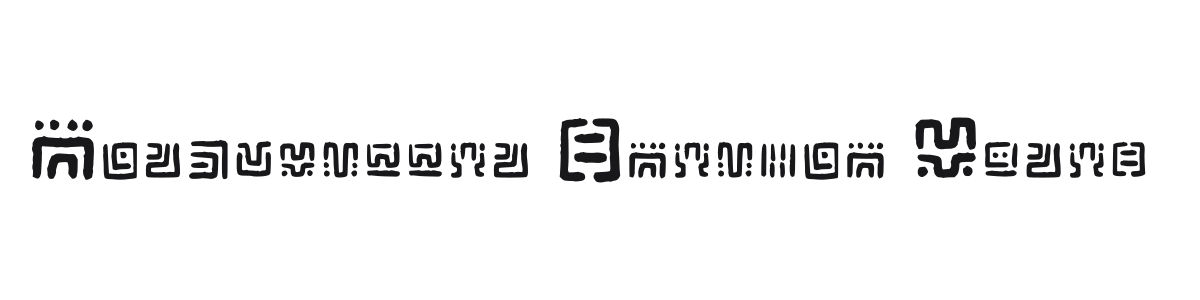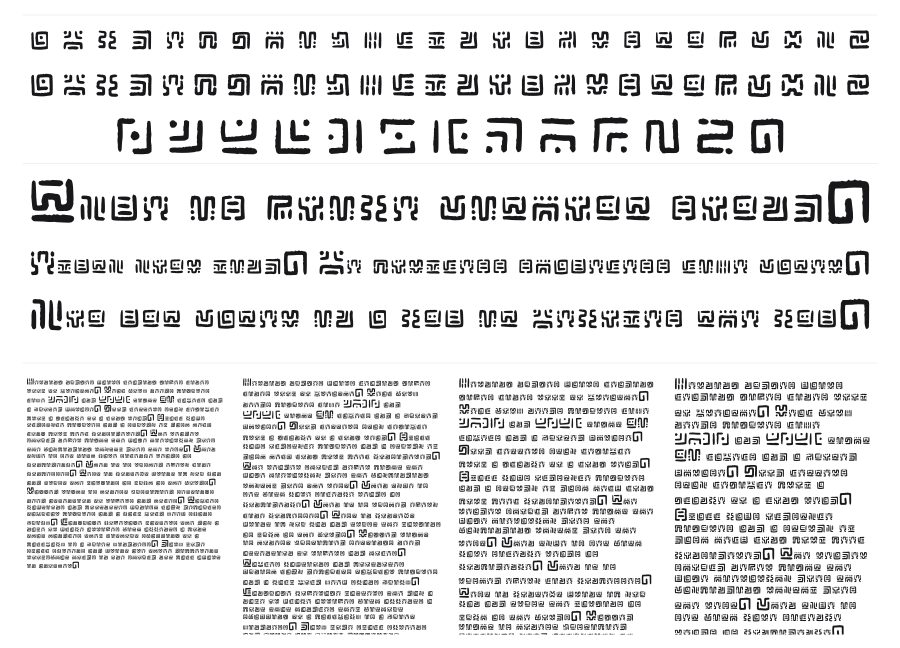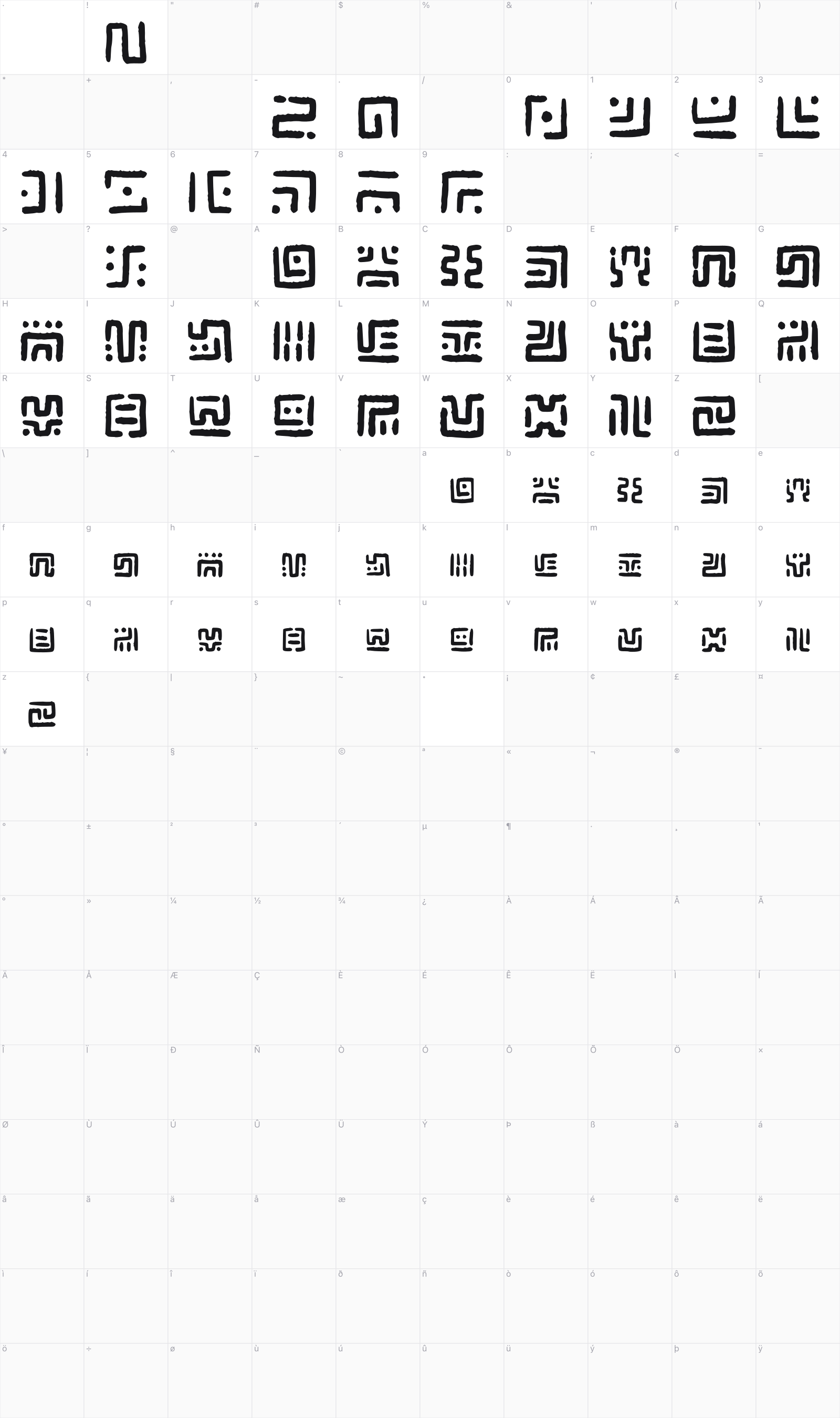
Handwritten Sheikah Runes
Handwritten Sheikah Runes recreates the mysterious alphabet from The Legend of Zelda: Breath of the Wild, drawn entirely by hand for a rougher, more organic feel than digitally constructed alternatives. Each symbol sits within a square frame built from thick geometric strokes, evoking the ancient stone-tablet look of in-game Sheikah technology. The hand-drawn imperfections give it genuine texture that printed or screen-rendered vector versions typically lack.